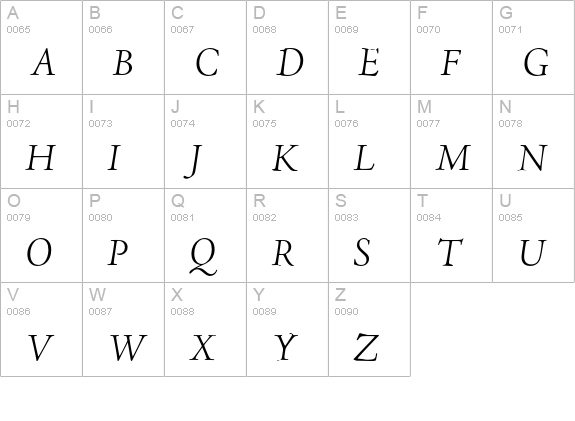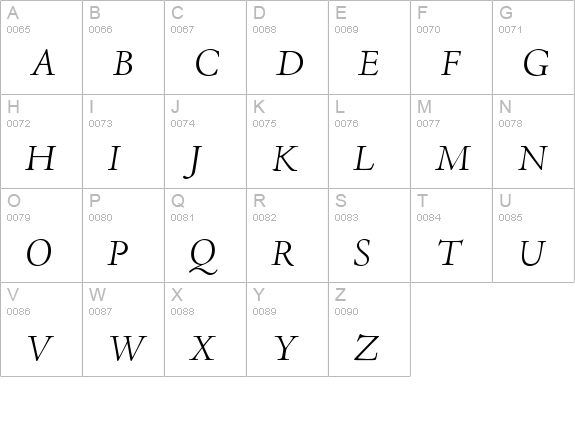
Adobe Jenson Pro Light Italic Subhead is a refined, elegant, italic variant in the Adobe typeface family \xE2\x80\x94 well suited to elegant body text, refined sub-headings, and luxury branding.
Adobe Jenson Pro Light Italic Subhead font is a sophisticated and elegant typeface that is perfect for adding a touch of style to your designs. With its graceful curves and delicate lines, this font exudes a sense of refinement and professionalism. This font is ideal for use in subheadings, titles, and other design elements where you want to make a statement. The light italic style adds a subtle emphasis without overpowering the text, making it versatile and easy to read. And the best part? Adobe Jenson Pro Light Italic Subhead font is available for free download at FontsMarket.com. So you can enhance your designs with this beautiful typeface without breaking the bank. Don't miss out on this opportunity to elevate your projects with the timeless elegance of Adobe Jenson Pro Light Italic Subhead font.